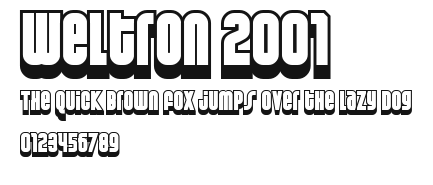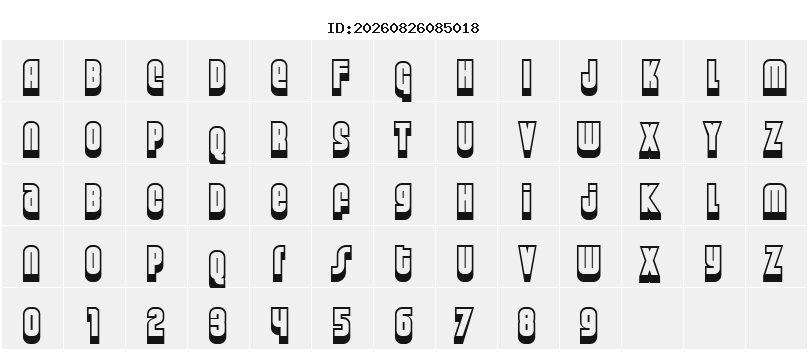
• Font Name: Weltron 2001
• Full Font Name: Weltron 2001
Weltron 2001.ttf is a modern, elegant sans-serif font designed for ultimate readability and visual harmony. Perfect for branding, headlines, web design, and print materials.